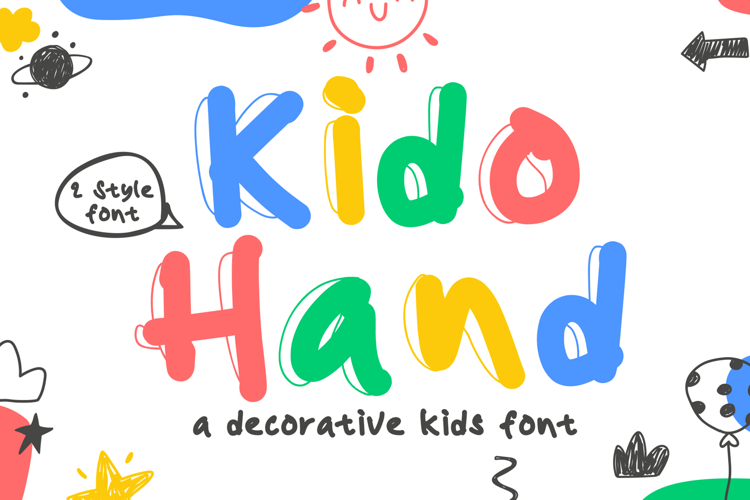
Kido Hand | Playful Natural Handwriting Kids Font
🎨 Kido Hand – Playful Handwriting Kids Font ✍️
Introducing Kido Hand, a fun and decorative handwriting font designed especially for kids' projects! With its charming, hand-drawn style, Kido Hand adds a joyful and friendly touch to any design. Whether you're creating children's books, school materials, playful branding, or DIY craft projects, this font brings a delightful and whimsical feel.
✨ Why Choose Kido Hand?
✅ Handwritten Charm – A natural, playful style miming a child's handwriting.
✅ Versatile & Fun – Perfect for posters, invitations, toys, packaging, and more!
✅ Easy to Read – Designed with smooth, rounded strokes for clarity and warmth.
Make your designs playful, heartwarming, and full of character with Kido Hand! Let creativity flow with this adorable kids’ font. 🎉
💡 Perfect for:
📚 Children’s Books & Learning Materials
🎨 Craft & DIY Projects
🎈 Birthday Invitations & Party Decor
🧸 Toy & Kids’ Product Packaging